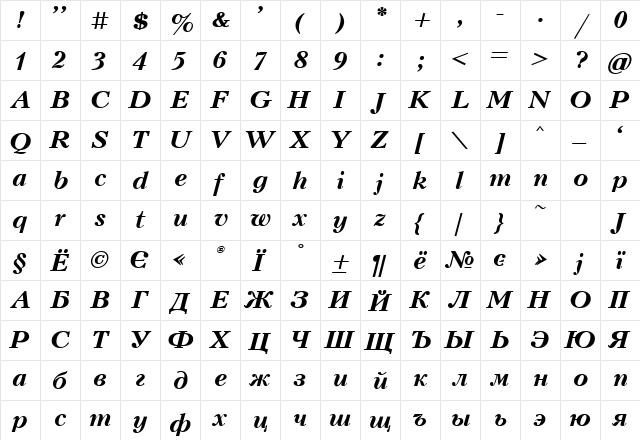
KudrashovC BoldItalic Font Preview
KudrashovC BoldItalic
KudrashovC BoldItalic Font Details
Design Context for KudrashovC Typeface
KudrashovC is a composed and adaptable typeface that performs quietly and consistently across a wide range of design contexts. The slanted form adds forward momentum and visual energy. The heavy weight commands attention and anchors typographic hierarchies.
Pro Tip: Use KudrashovC for emphasis, pull quotes, and subheadings where its slanted energy can add rhythm to the layout.